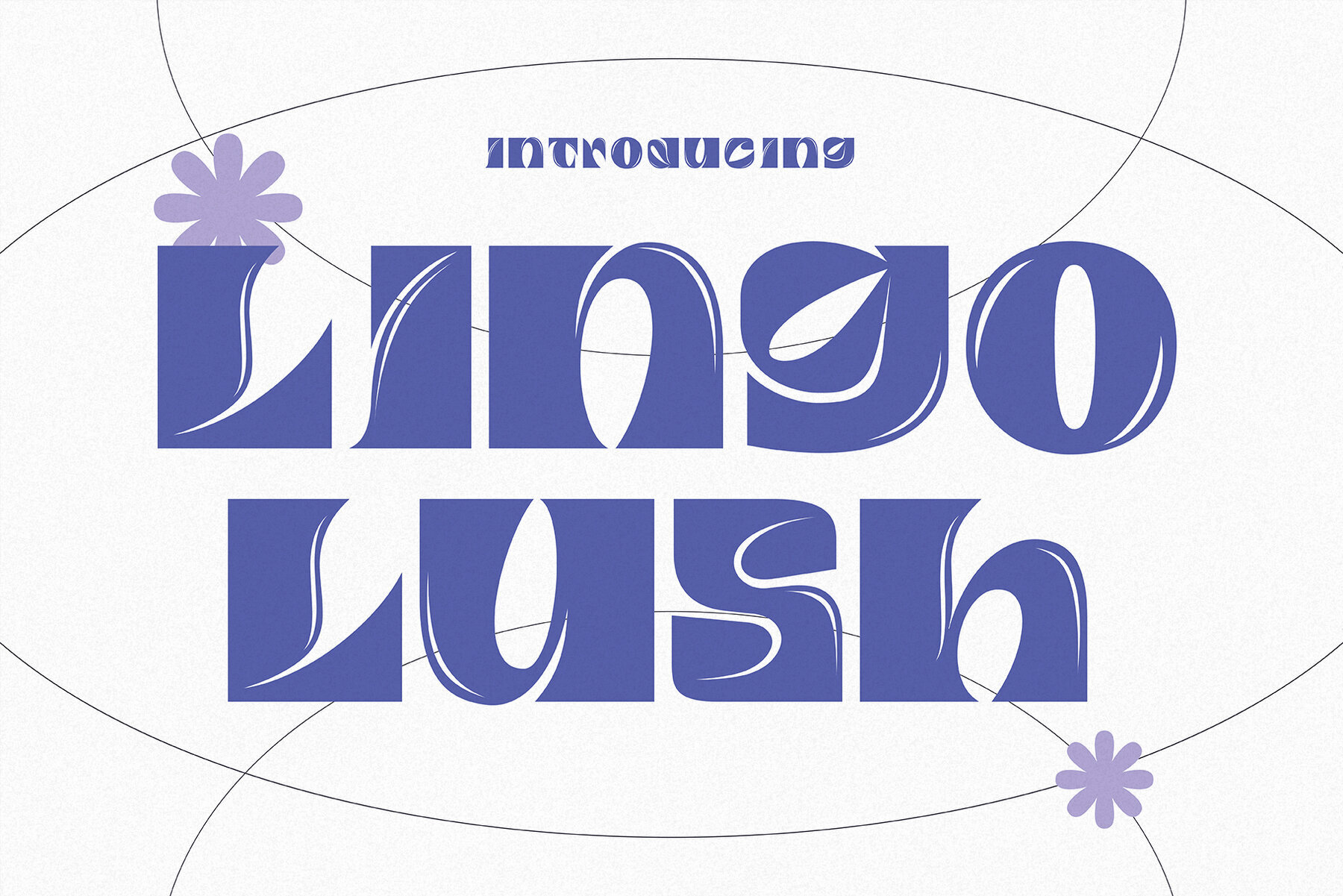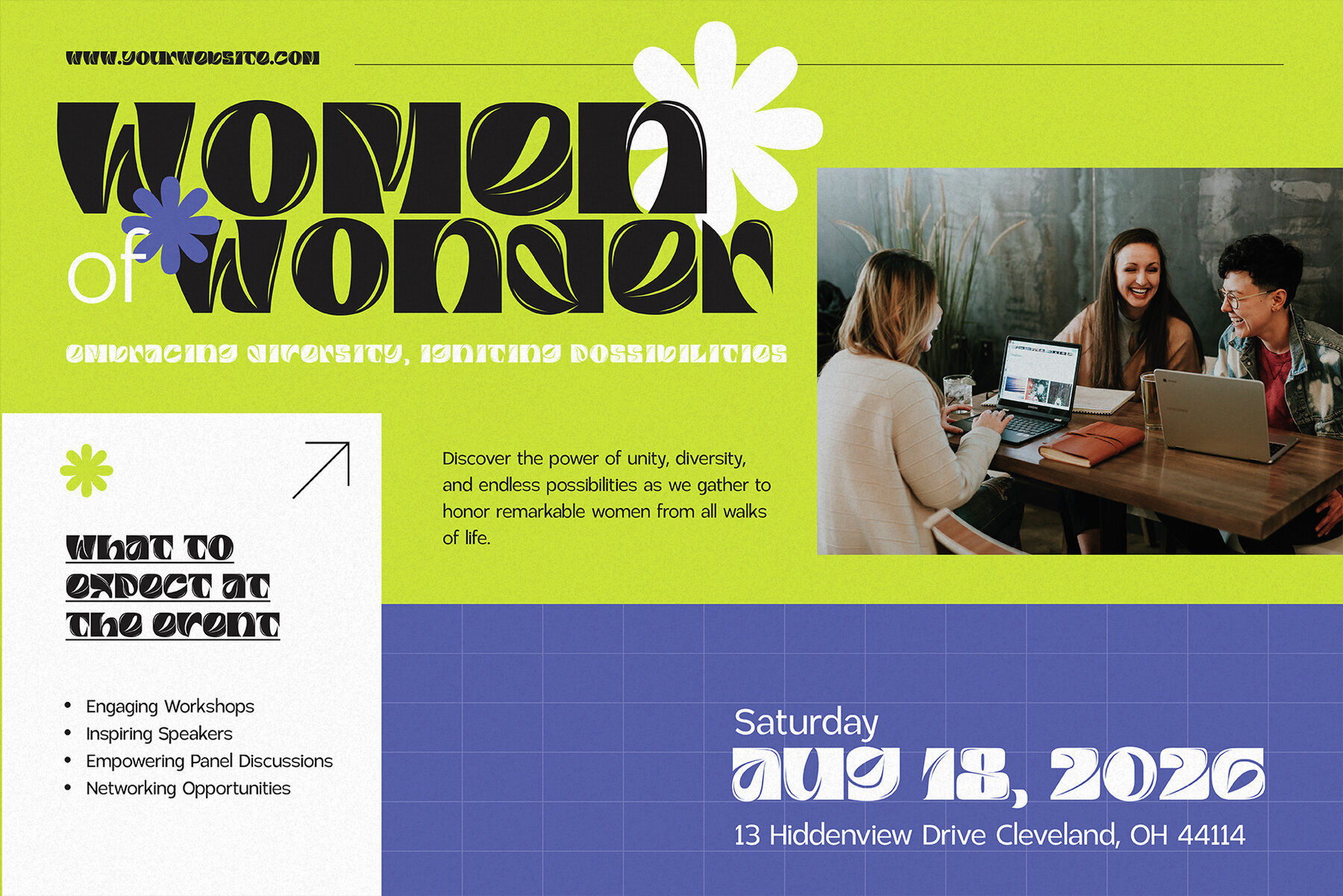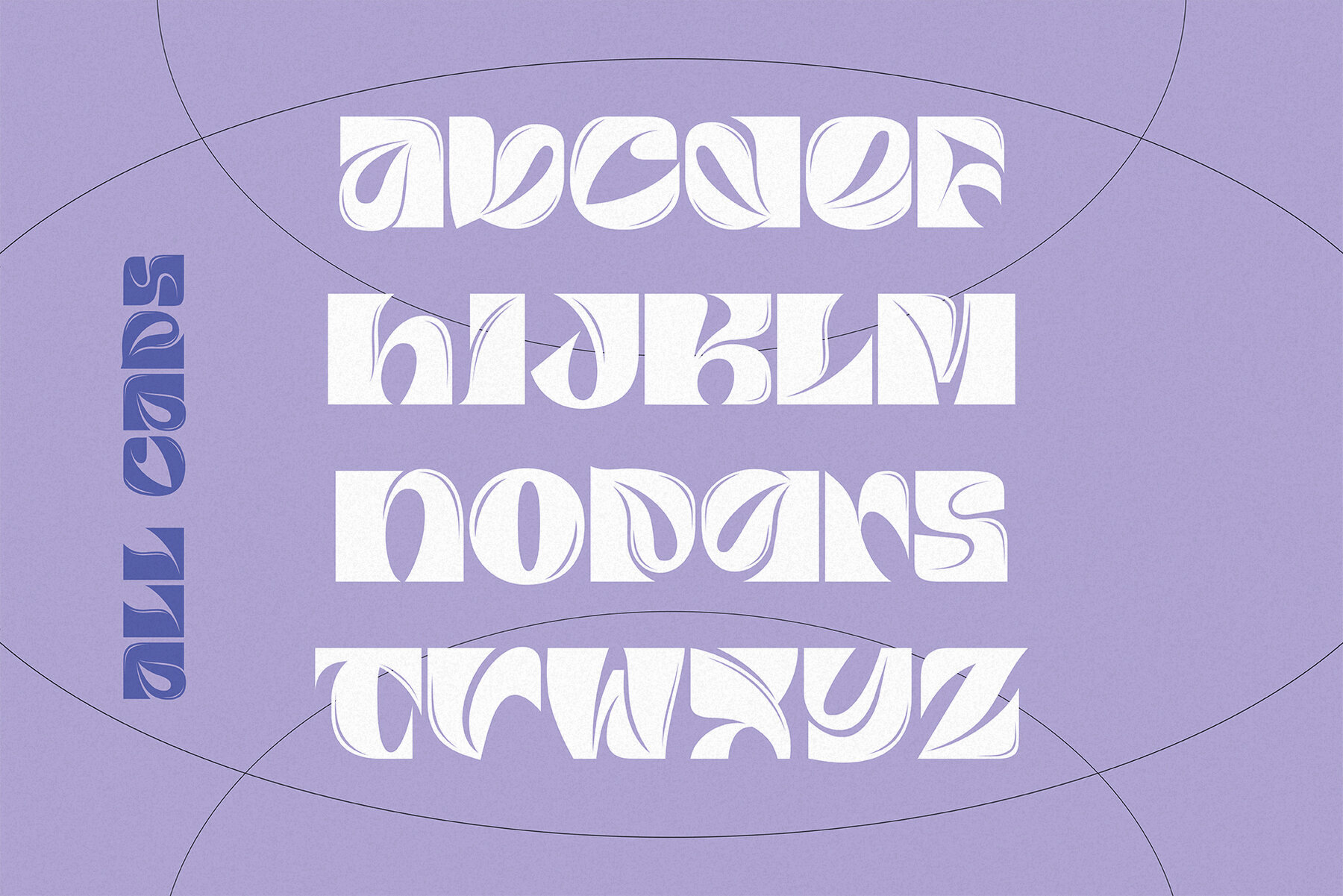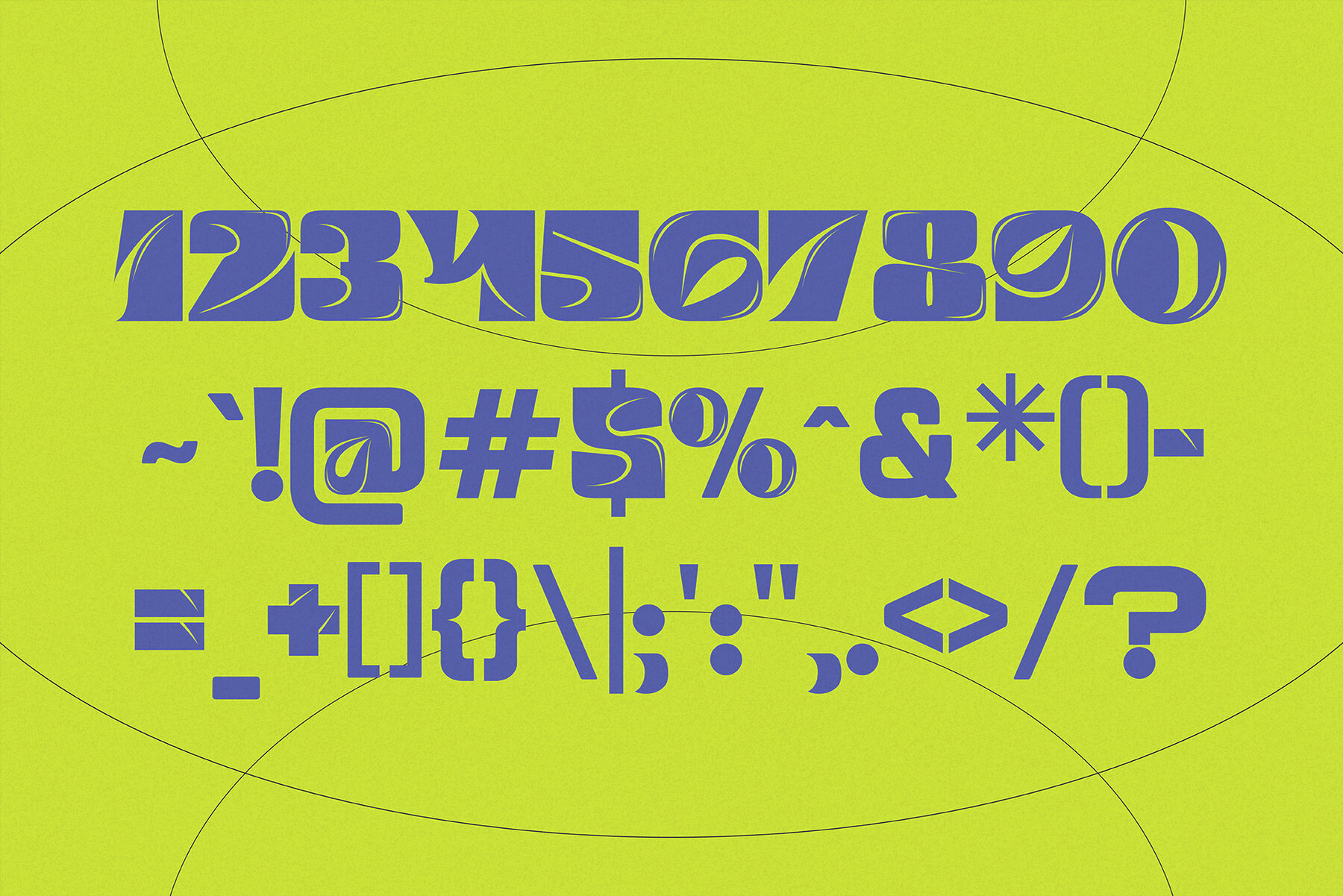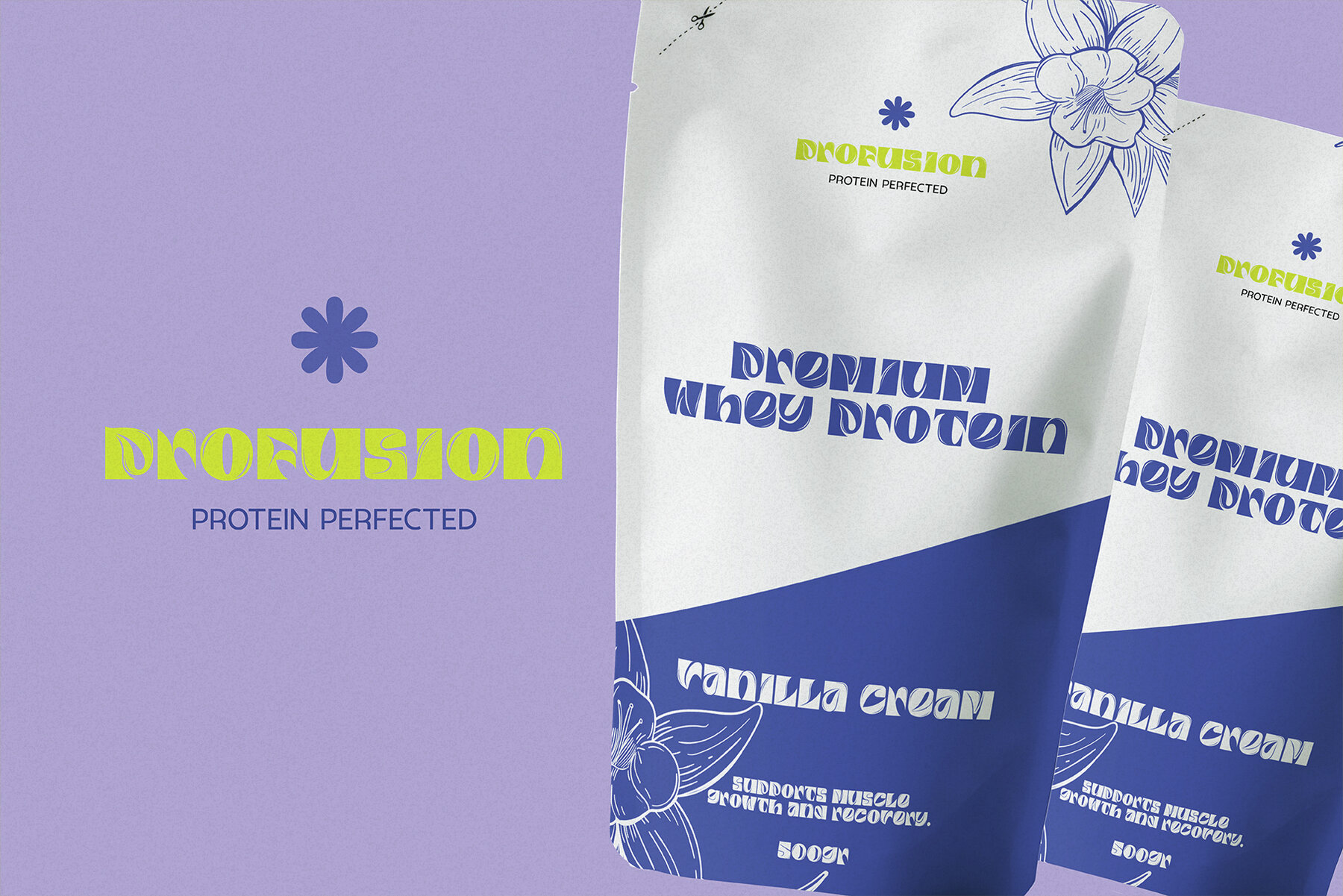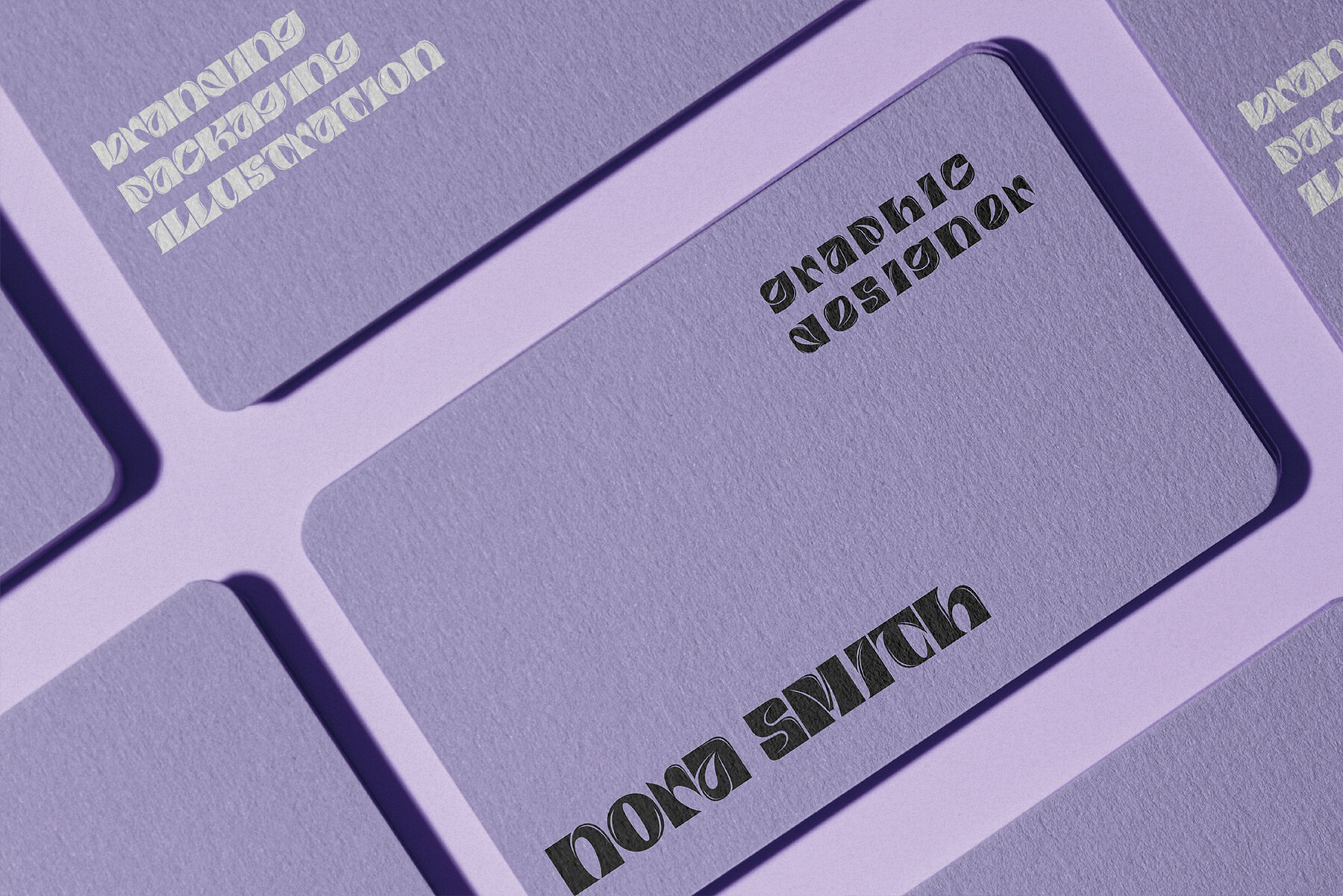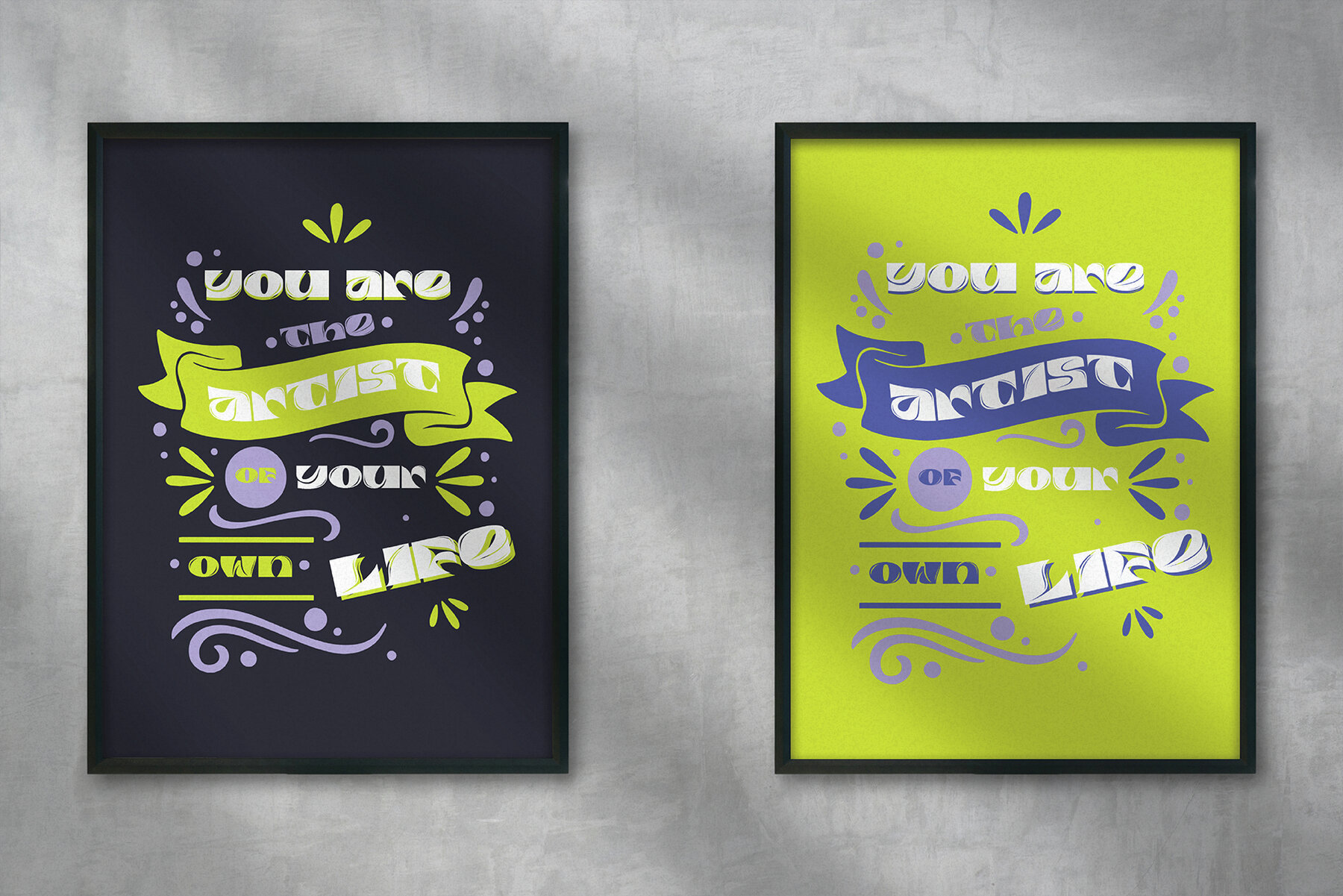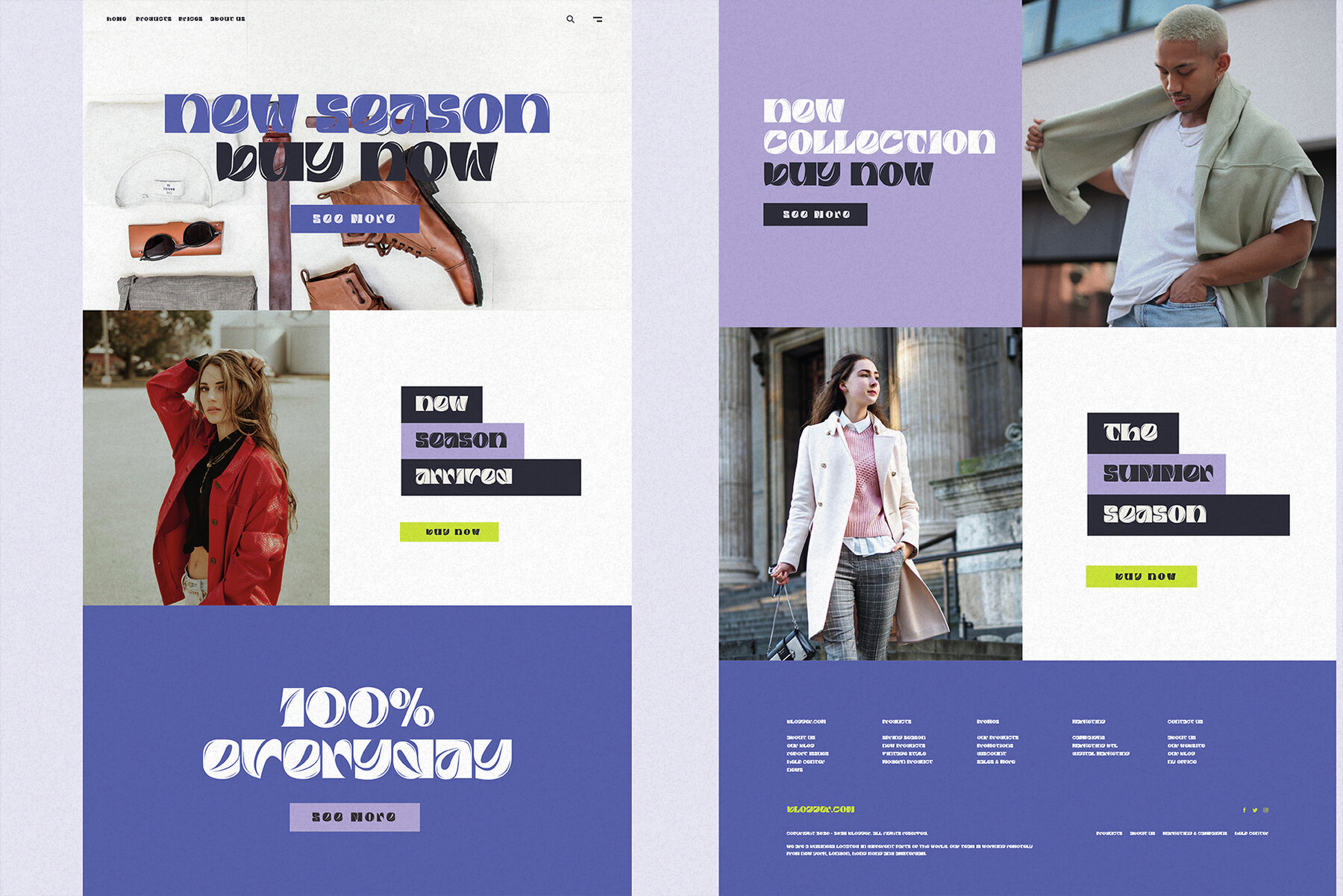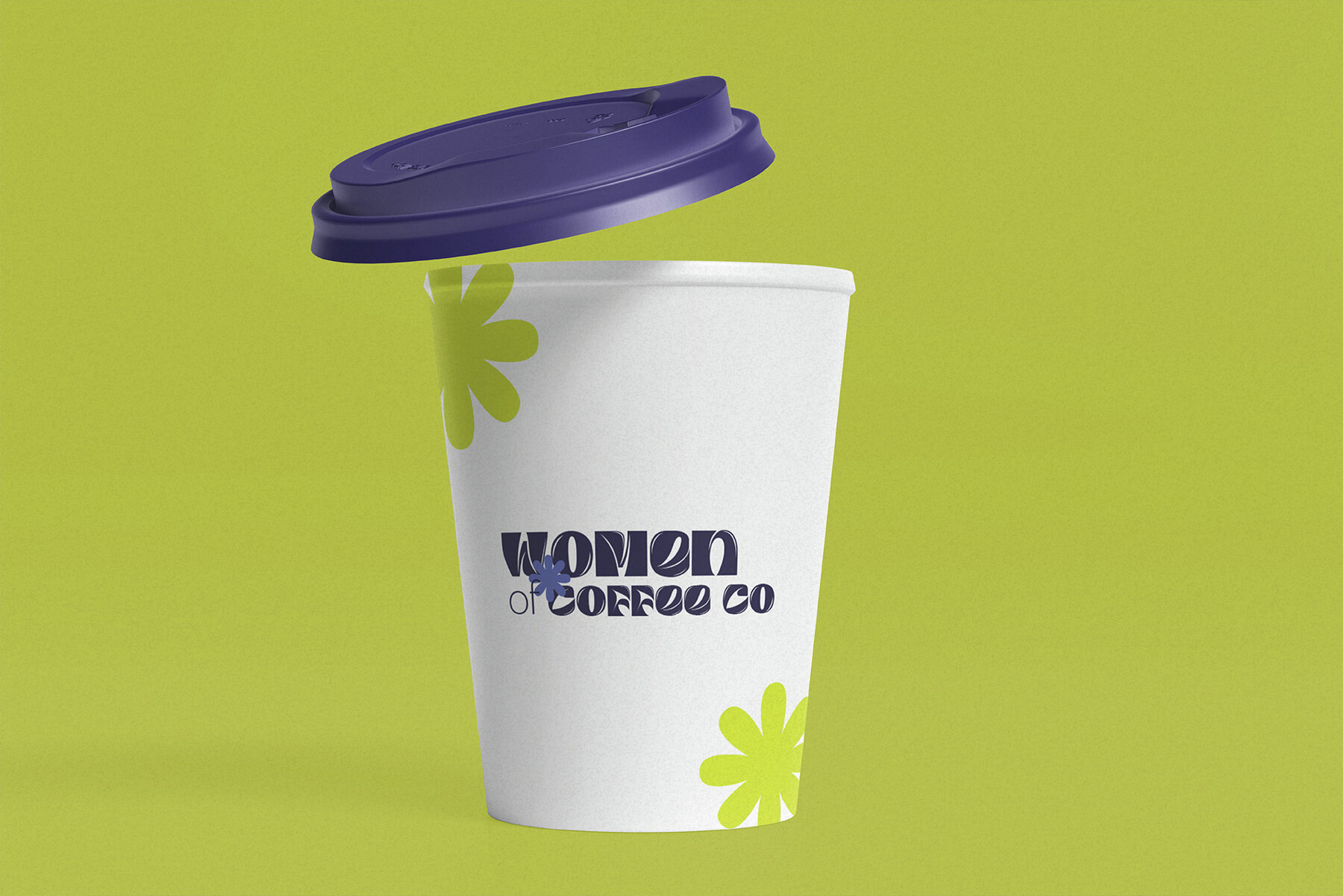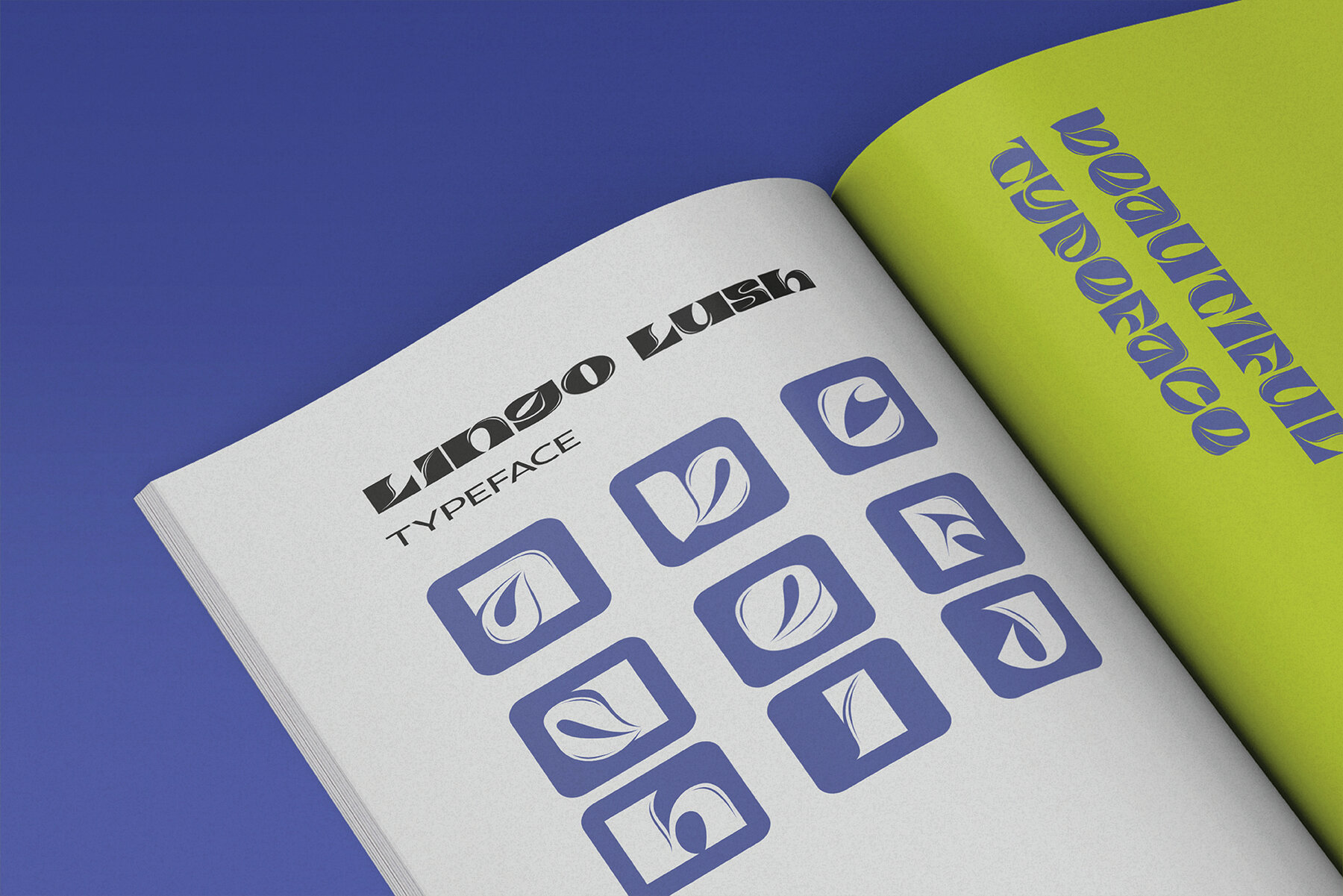
Lingo Lush Font
Lingo Lush Regular
Introducing Lingo Lush, a breathtakingly surreal all caps typeface that’s destined to elevate your design projects to new heights of creativity and uniqueness. With its exquisite curves and mesmerizing shapes, Lingo Lush defies convention and invites you into a world where the ordinary meets the extraordinary. Crafted with meticulous attention to detail, every character in Lingo Lush tells a whimsical story, captivating your audience and adding an element of surprise to your designs. Its fluid, organic lines and otherworldly contours lend a touch of magic to everything it graces, making it perfect for logos, branding, posters, or any creative endeavor where you want to leave a lasting impression. Whether you’re a seasoned designer or just someone with an eye for the extraordinary, Lingo Lush promises to infuse your projects with an irresistible charm and an air of surreal wonder. Don’t miss the chance to own this extraordinary typeface; it’s the key to unlocking a world of design possibilities you never knew existed. Get Lingo Lush today and let your creativity run wild!